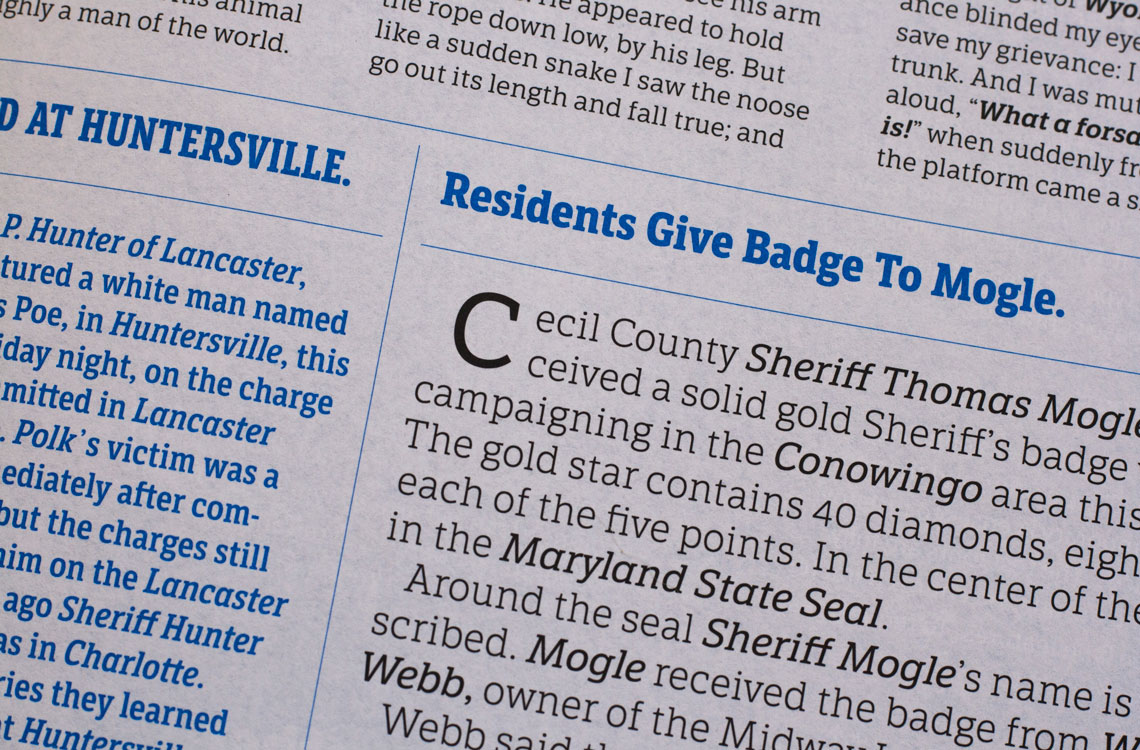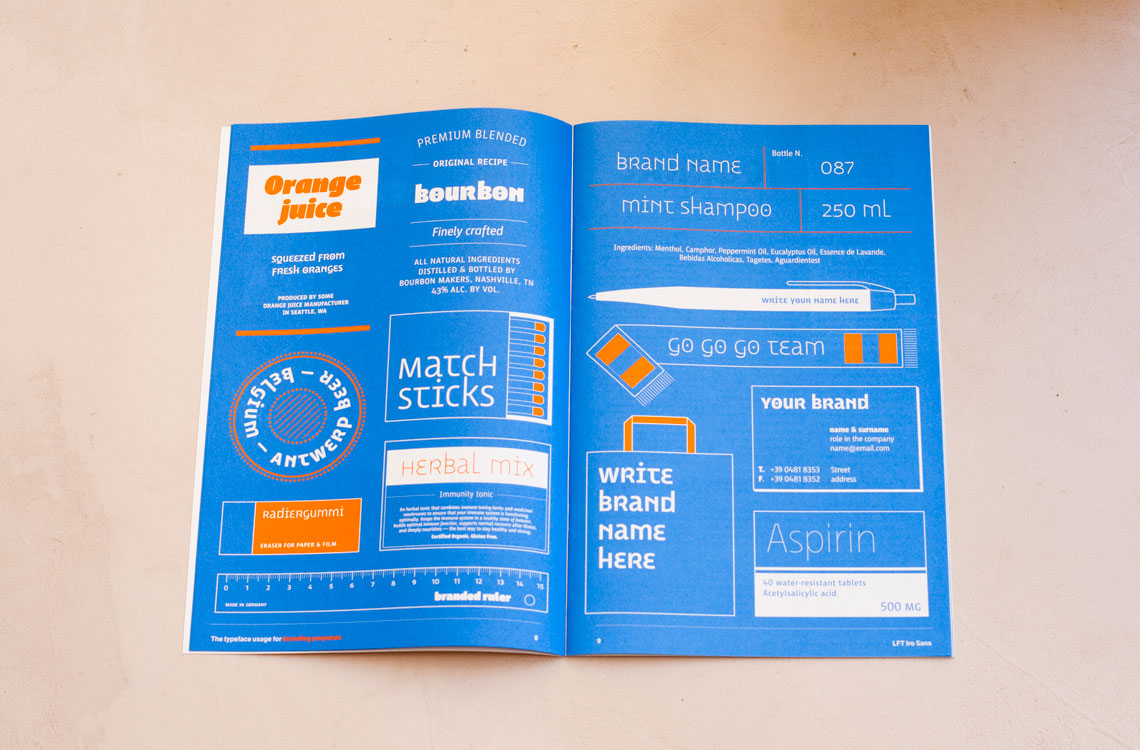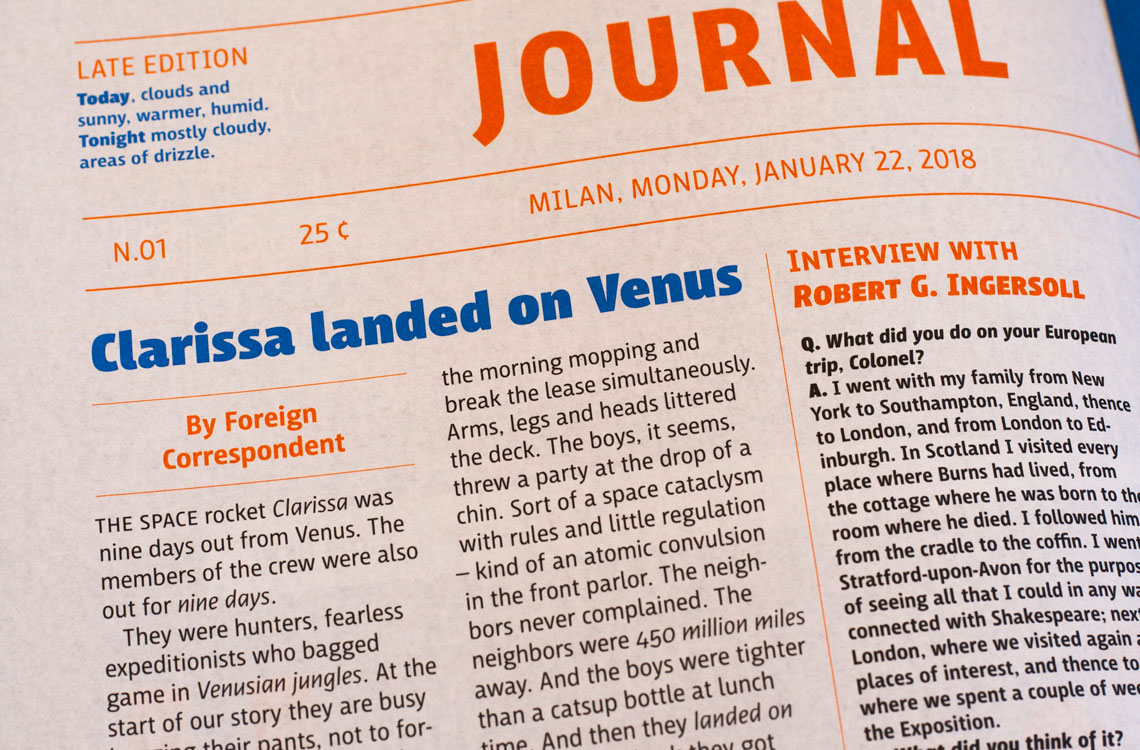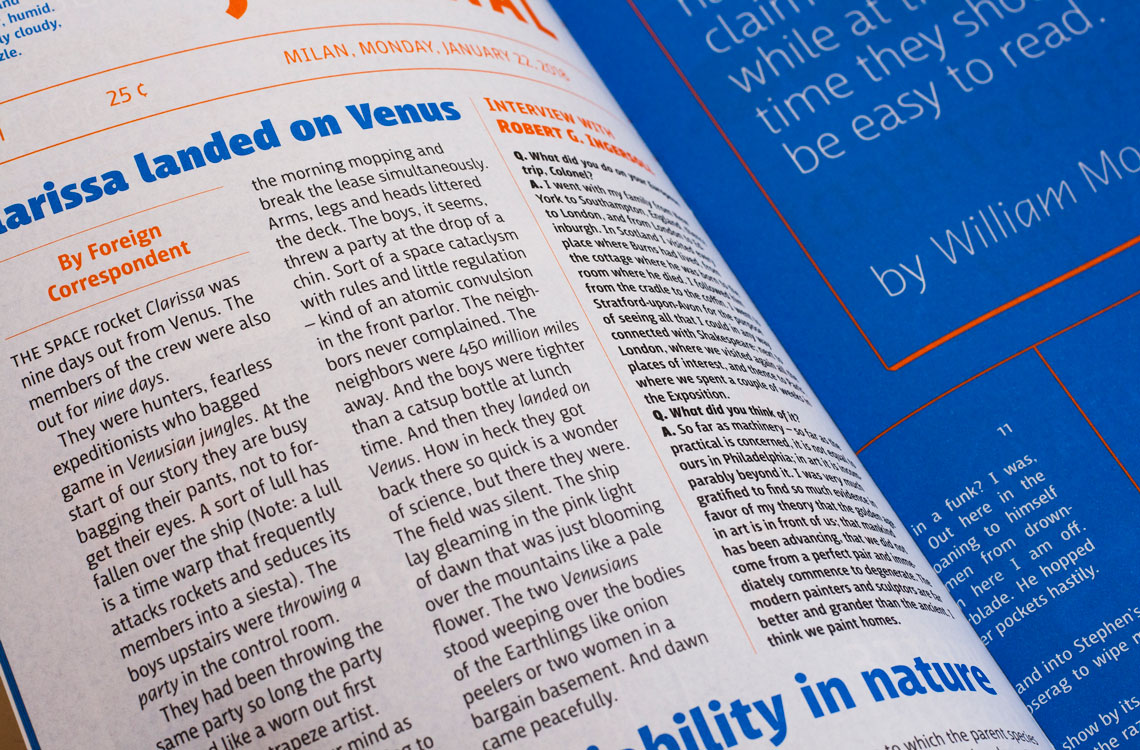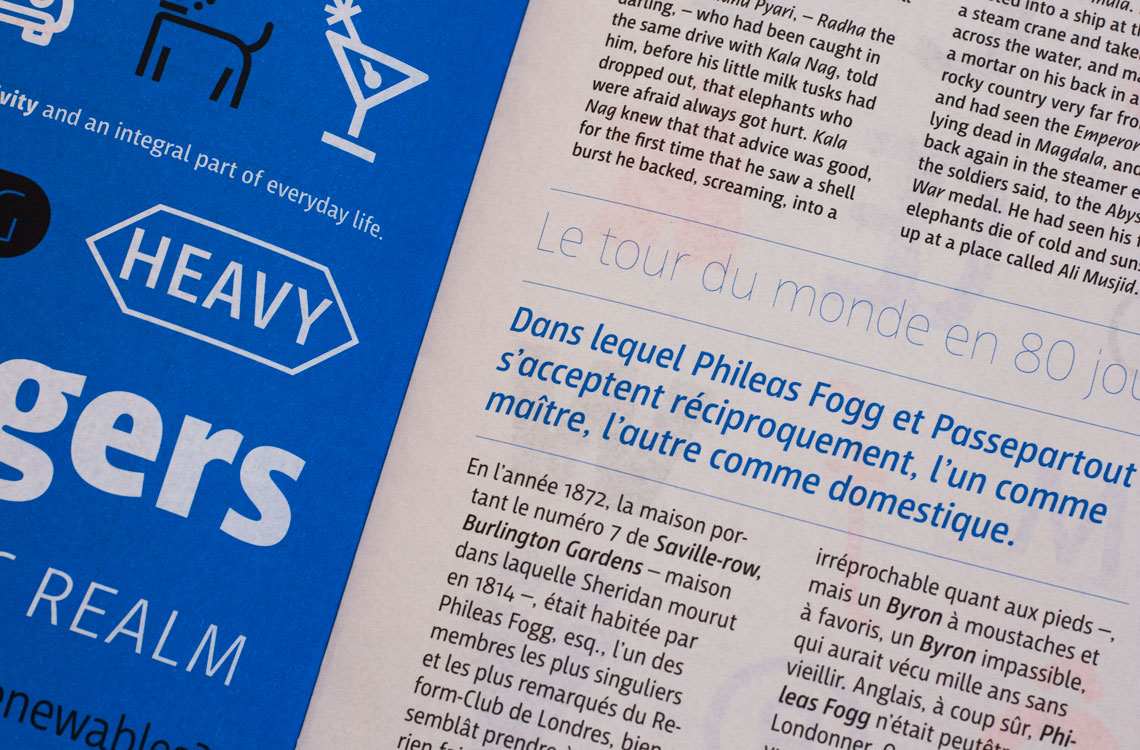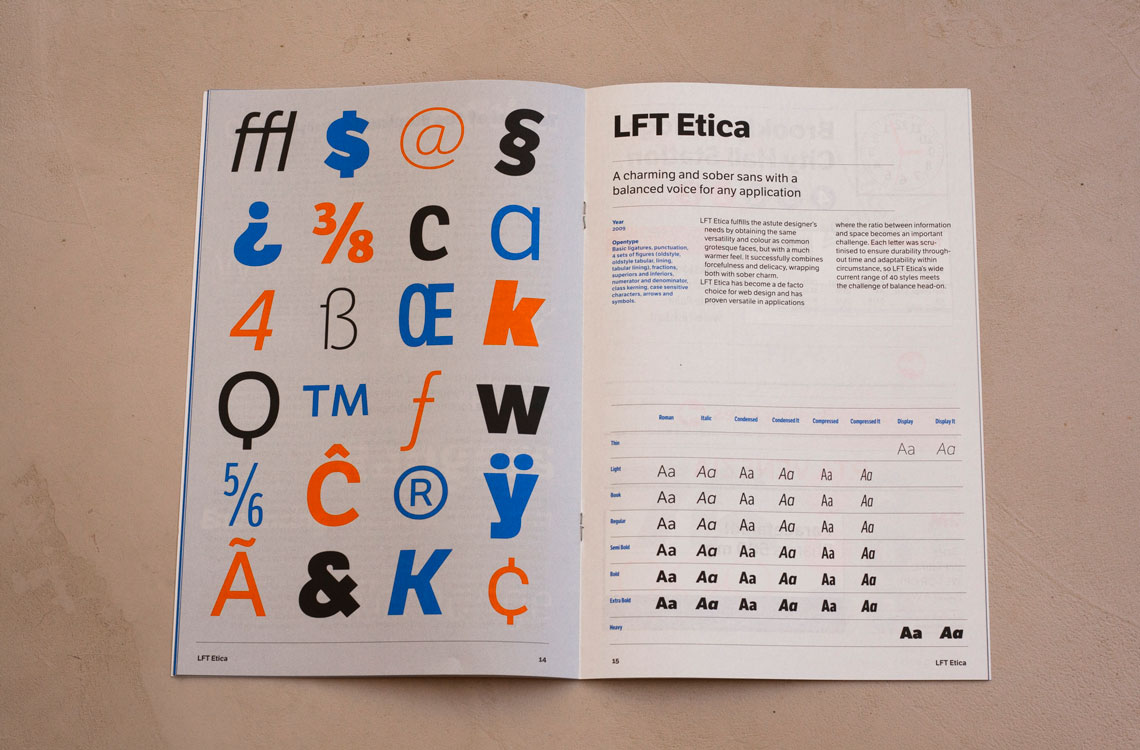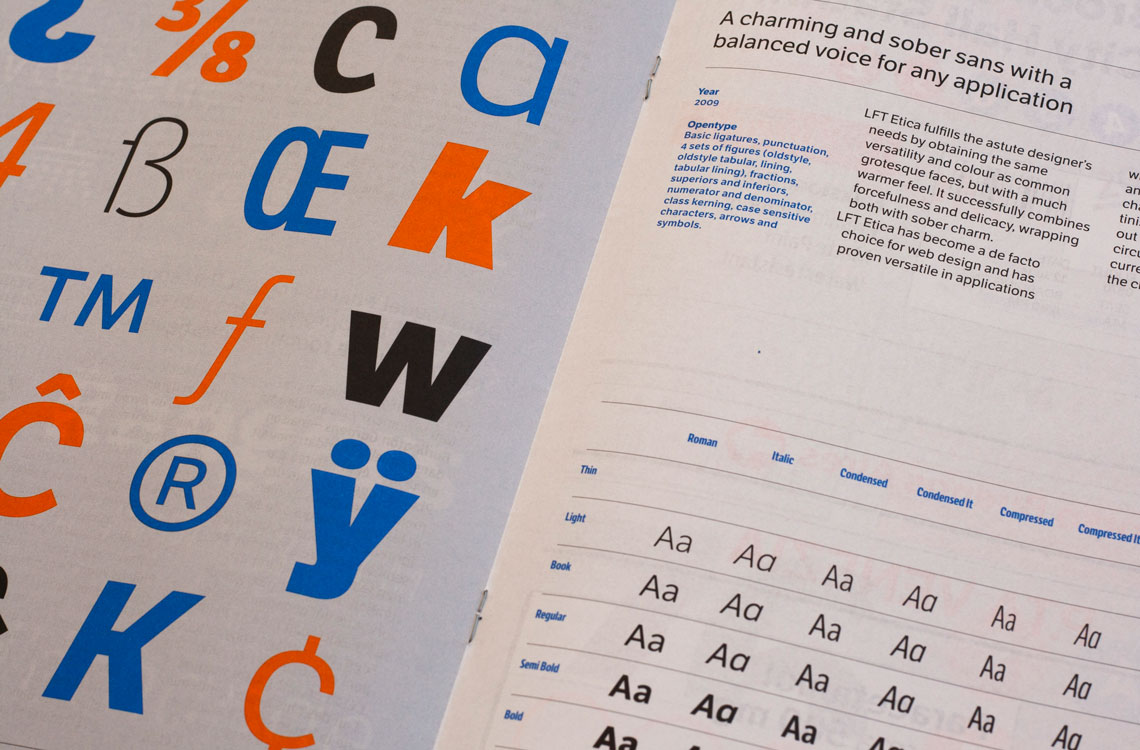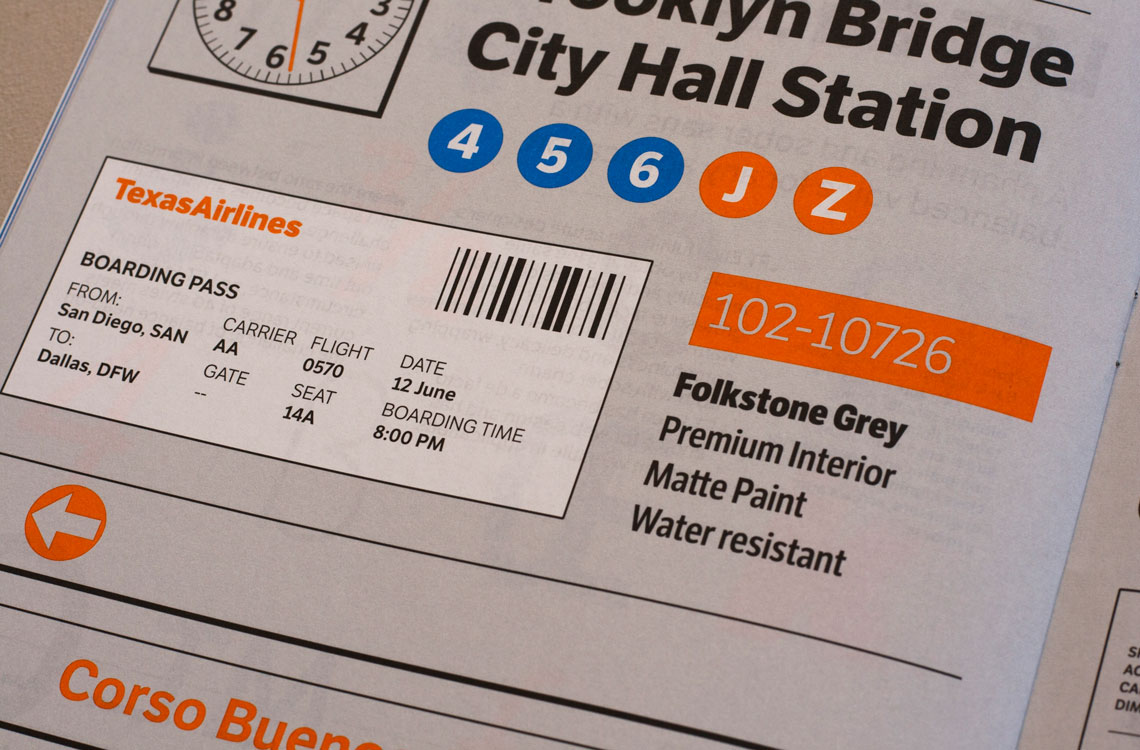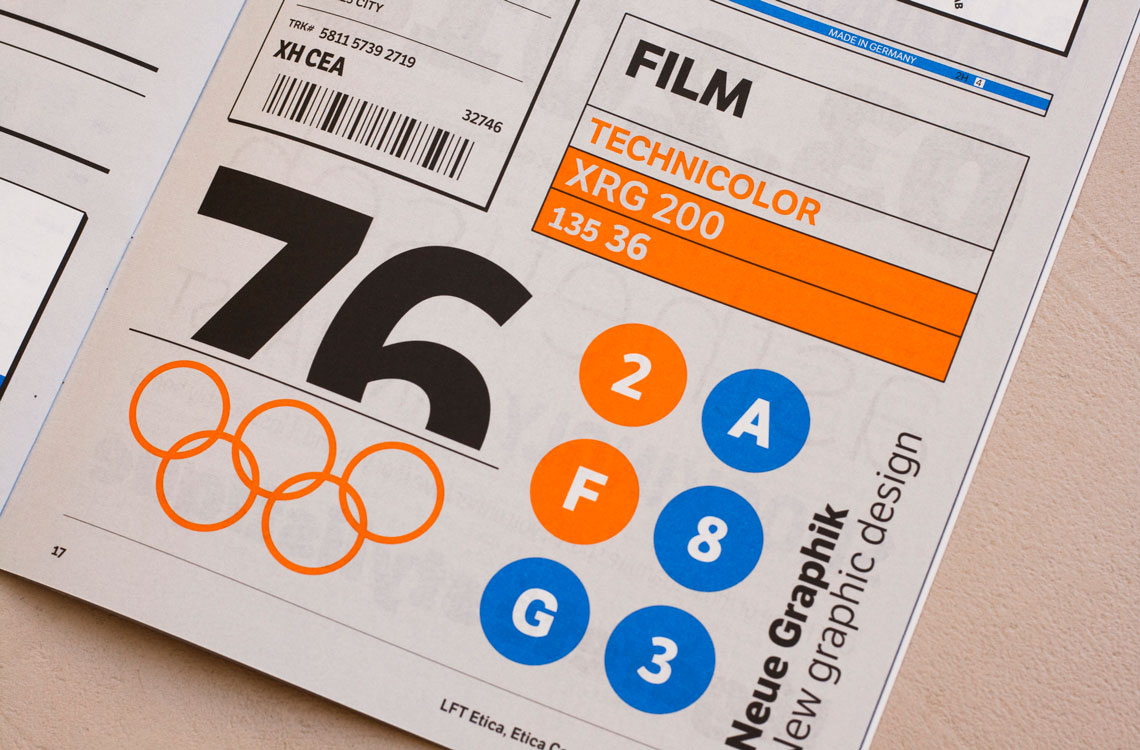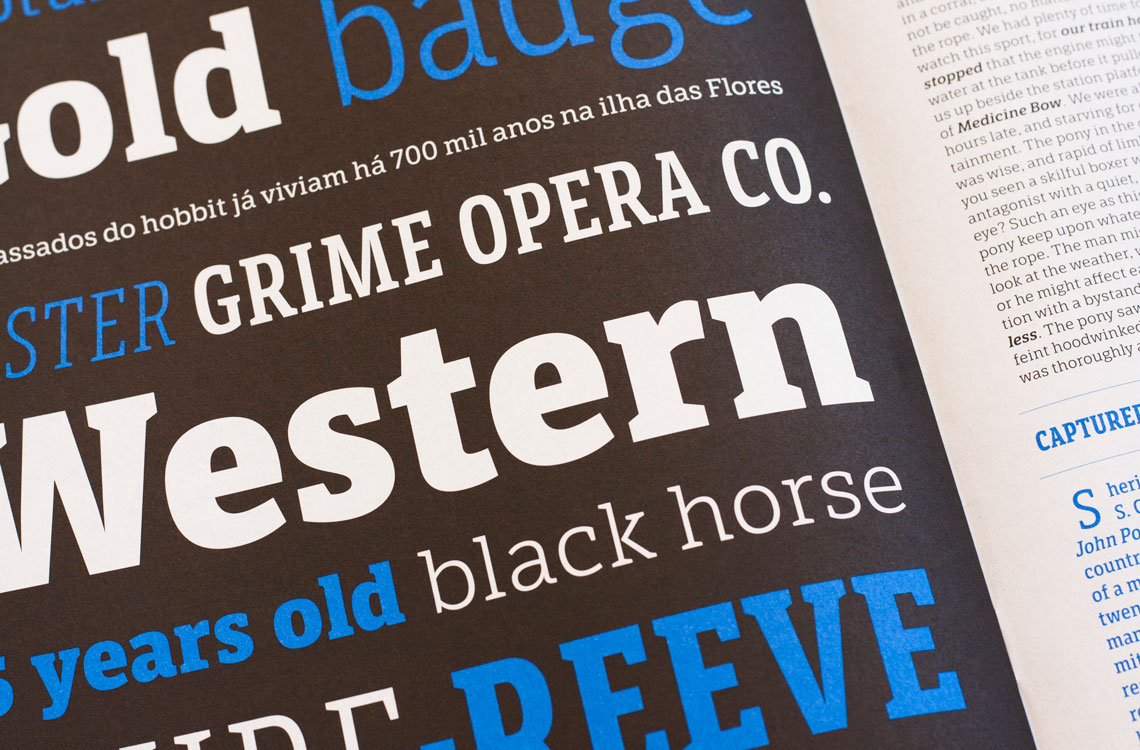
Leftloft font catalogue
A beautifully printed, 28-page catalogue featuring TypeTogether’s font families designed by renowned Italian design studio Leftloft. The booklet includes LFT Etica, LFT Etica Sheriff and LFT Iro Sans showing the families in an imaginary environment respective to their intended usage. Designed by Leftloft and edited by TypeTogether.